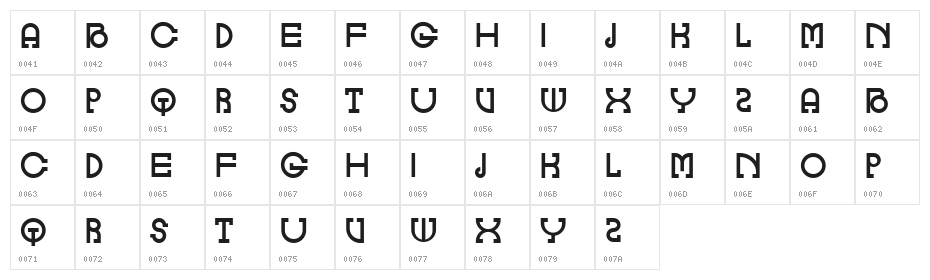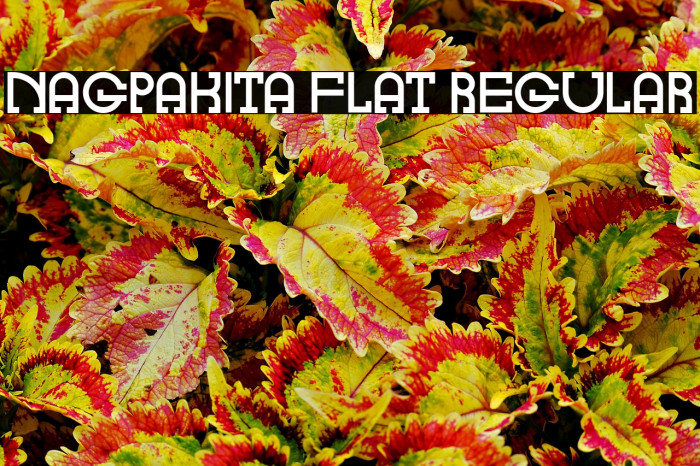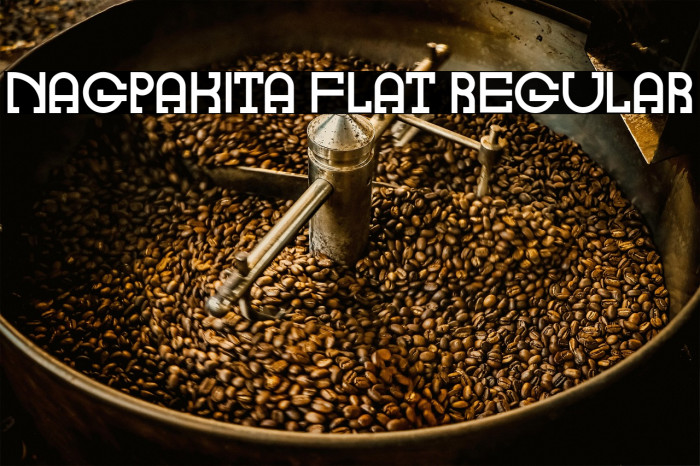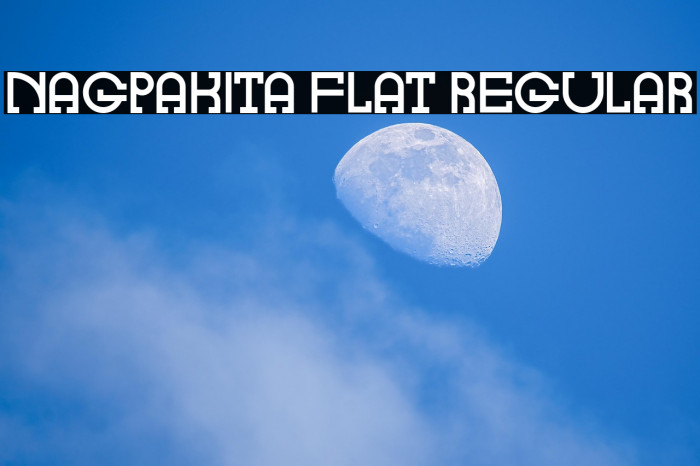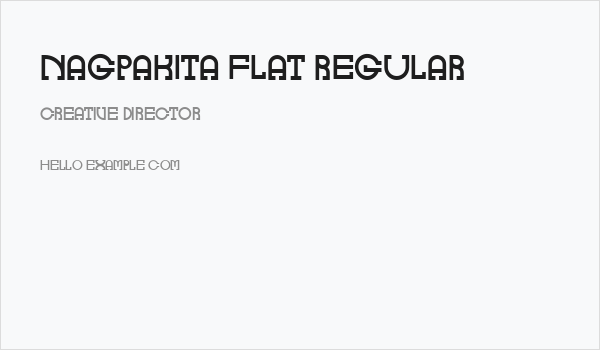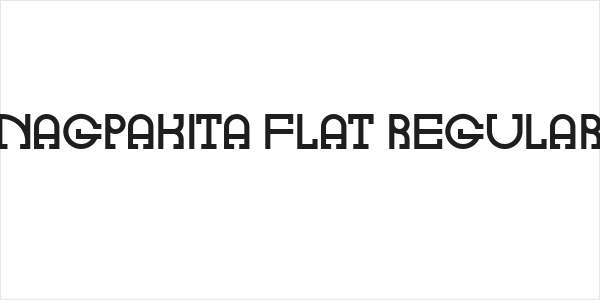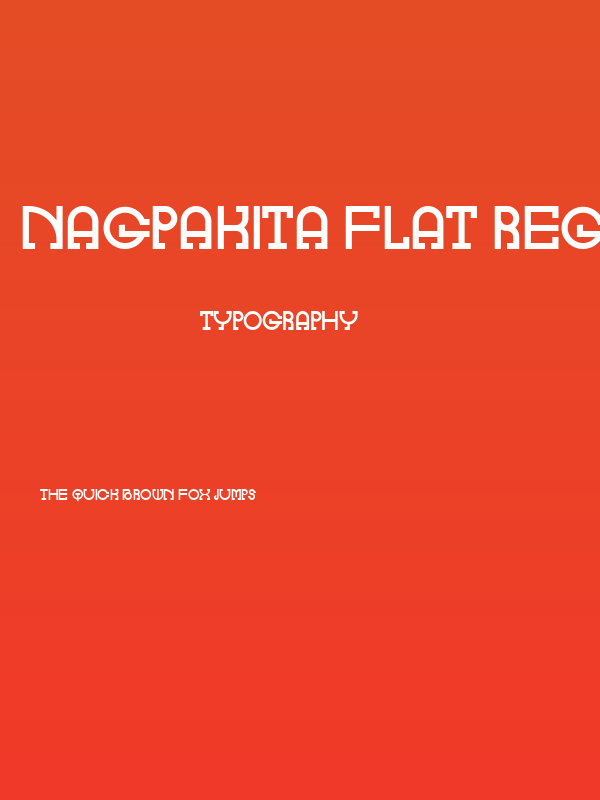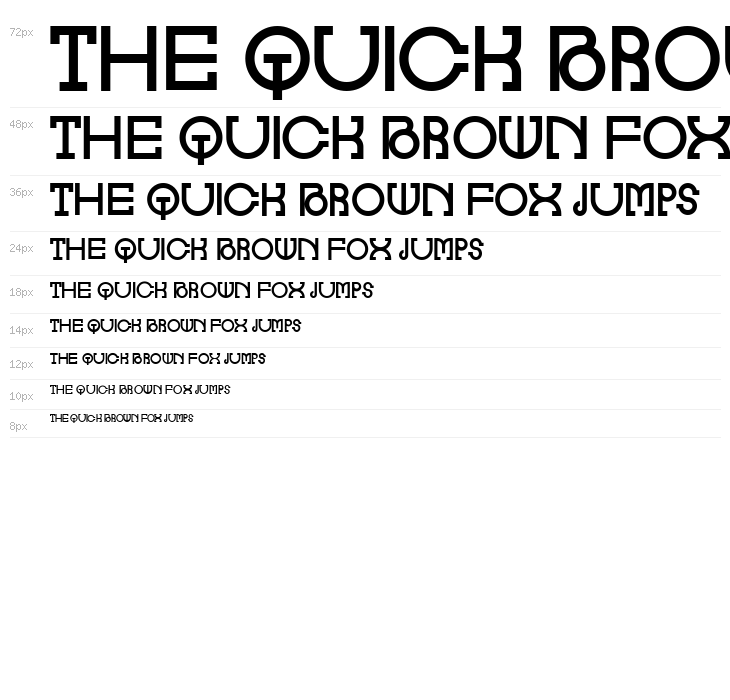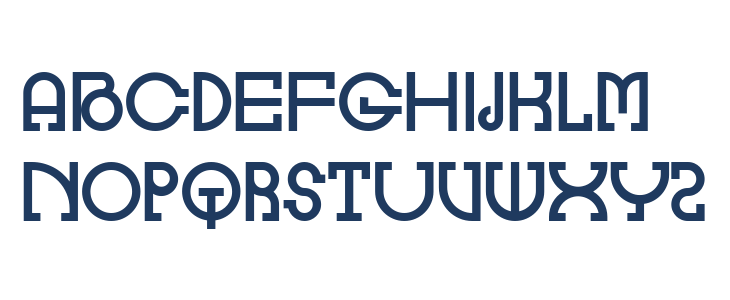
Nagpakita Flat Regular Font
Nagpakita Flat Regular Description
This font features a unique and bold design with geometric elements, characterized by its strong, clean lines and distinct shapes. The uppercase letters exhibit a modern and artistic flair, with some characters incorporating circular and angular elements that create a striking visual impact. The font maintains a consistent stroke width throughout, offering a balanced and harmonious appearance. Its distinctive style makes it suitable for creative and contemporary projects, where a bold statement is desired. The font's design is both eye-catching and versatile, making it a great choice for various design applications.
| Proposed Projects | Ideal for branding, posters, headlines, and modern design projects. |